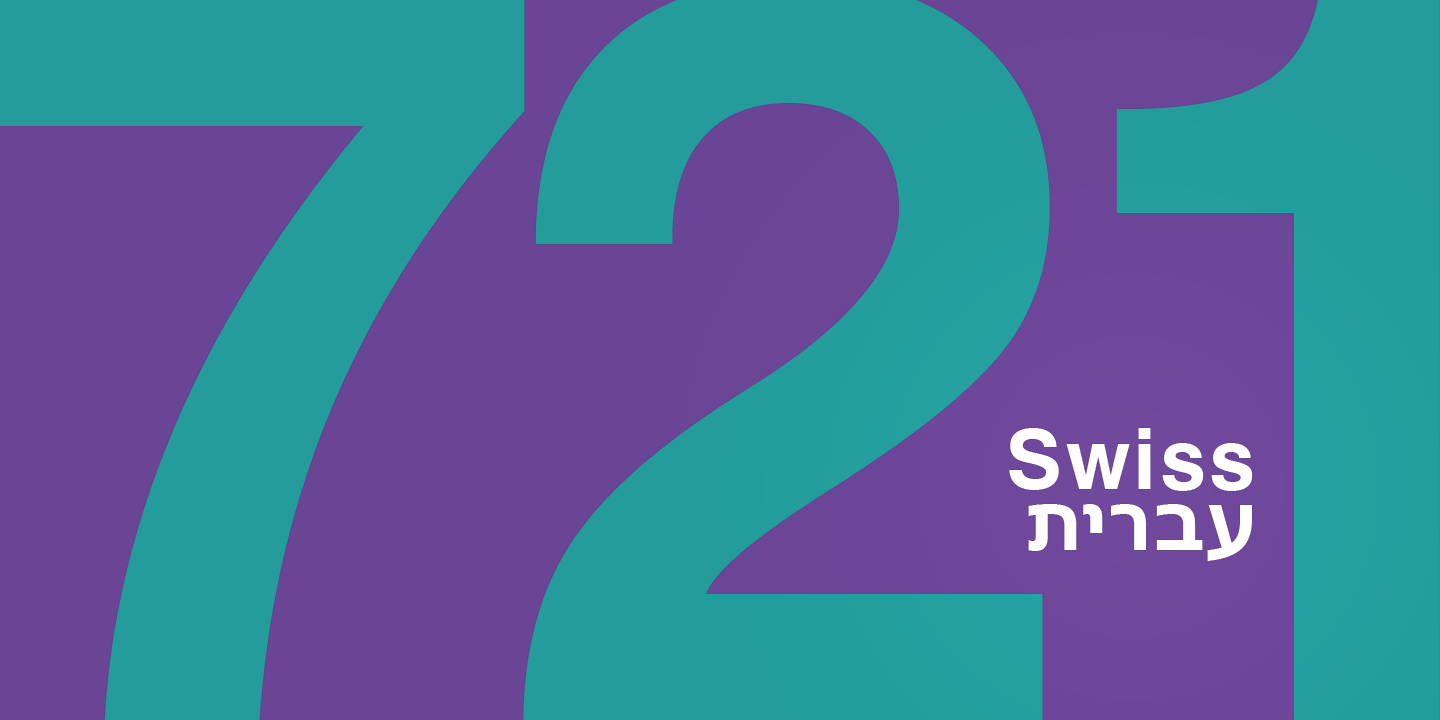
Swiss 721 Hebrew Font is ideal for Hebrew publications, Jewish cultural materials, synagogue signage, Israeli business branding, multilingual documents, religious texts, Hebrew educational resources, and international communication designs requiring Hebrew language support.
What makes Swiss 721 Hebrew Font exciting is its exceptional bilingual design that seamlessly combines Swiss typography excellence with authentic Hebrew letterforms. This sophisticated typeface features carefully balanced Hebrew characters that maintain perfect harmony with Latin script, creating professional multilingual communication solutions that respect both typographic traditions while ensuring optimal readability across languages.
The Swiss 721 Hebrew Font family includes regular, medium, and bold weights, plus comprehensive Hebrew character sets and diacritical marks that provide complete support for modern Hebrew typography and traditional religious text formatting requirements.
This versatile typeface delivers outstanding multilingual functionality and cultural authenticity, making Swiss 721 Hebrew Font Free Download an invaluable resource for international organizations and Hebrew-speaking communities. The font's professional character makes it perfect for businesses operating in Hebrew-speaking markets or requiring bilingual communication capabilities. Publishing houses and cultural institutions particularly appreciate its ability to maintain typographic consistency across Hebrew and Latin scripts in their materials. The expertly designed letterforms ensure exceptional legibility in both languages while preserving the dignity of Hebrew typographic traditions. Whether you're creating educational materials for Hebrew language learning or developing corporate communications for Israeli markets, this font provides the perfect combination of international professionalism and cultural sensitivity. Creative professionals consistently choose this typeface for projects requiring that ideal balance of Swiss design excellence and Hebrew linguistic authenticity.